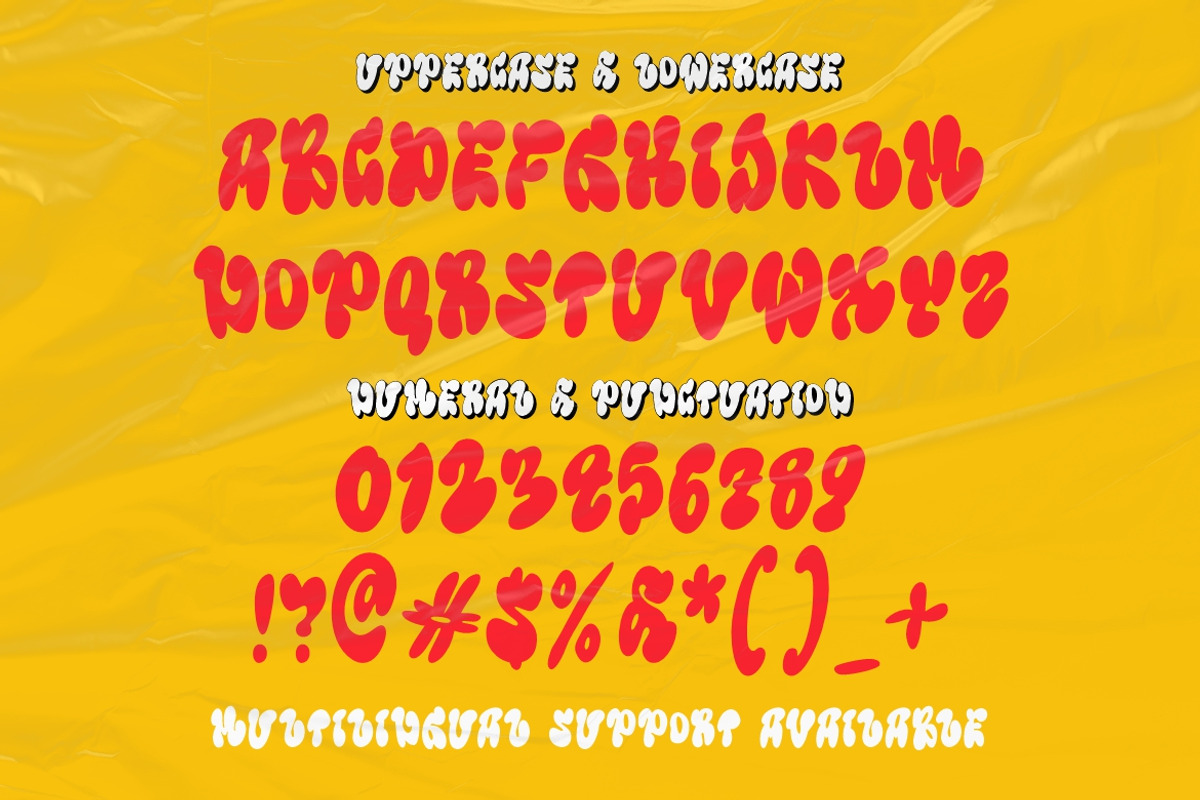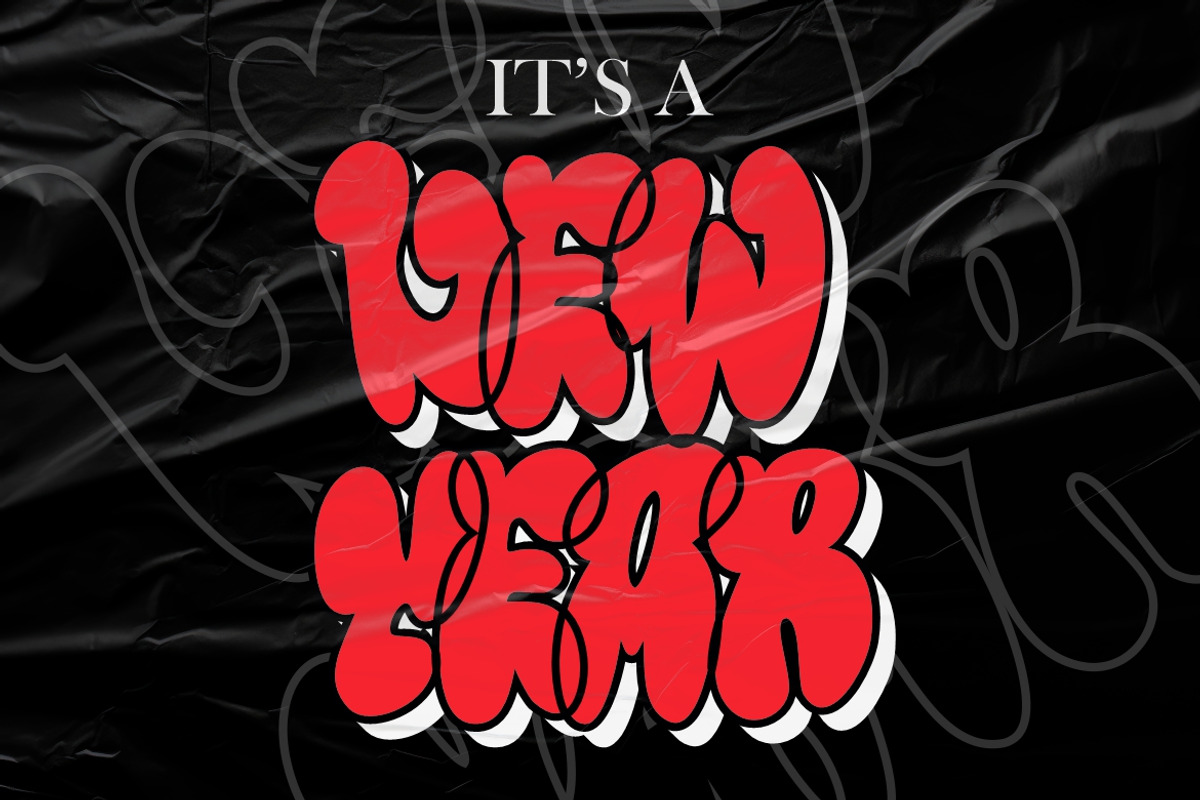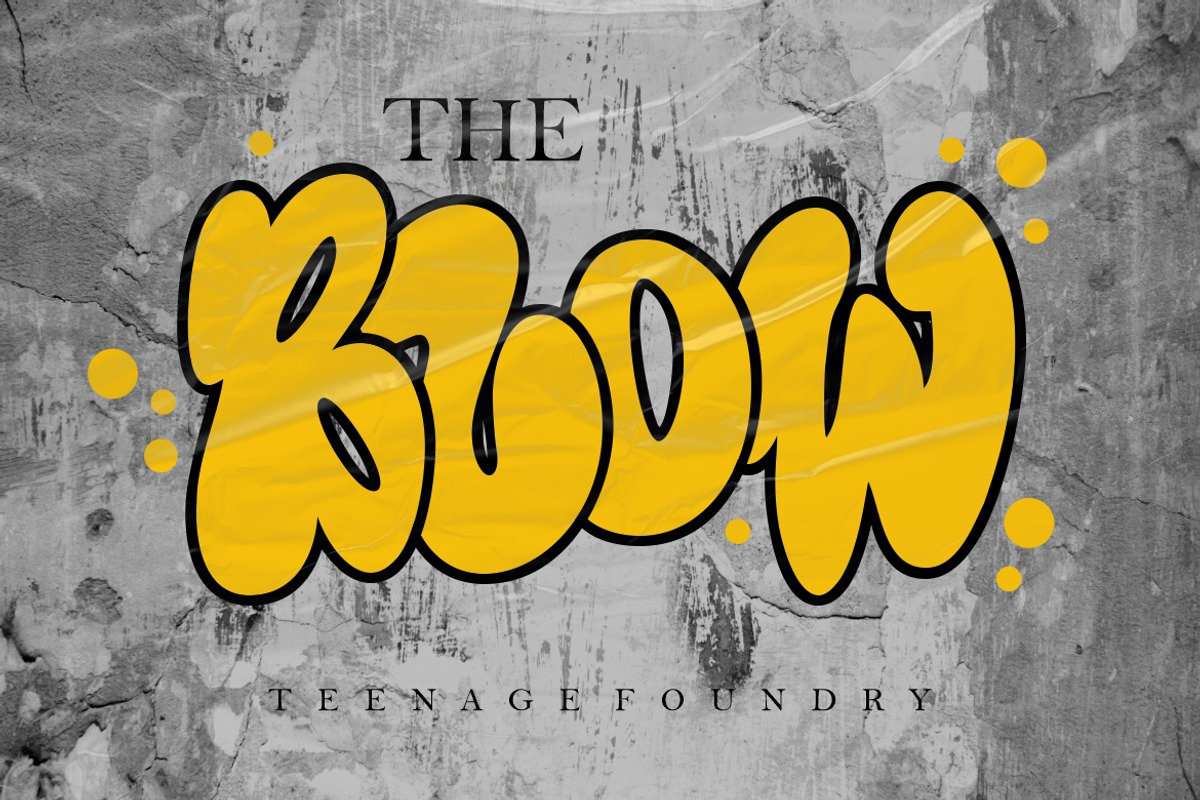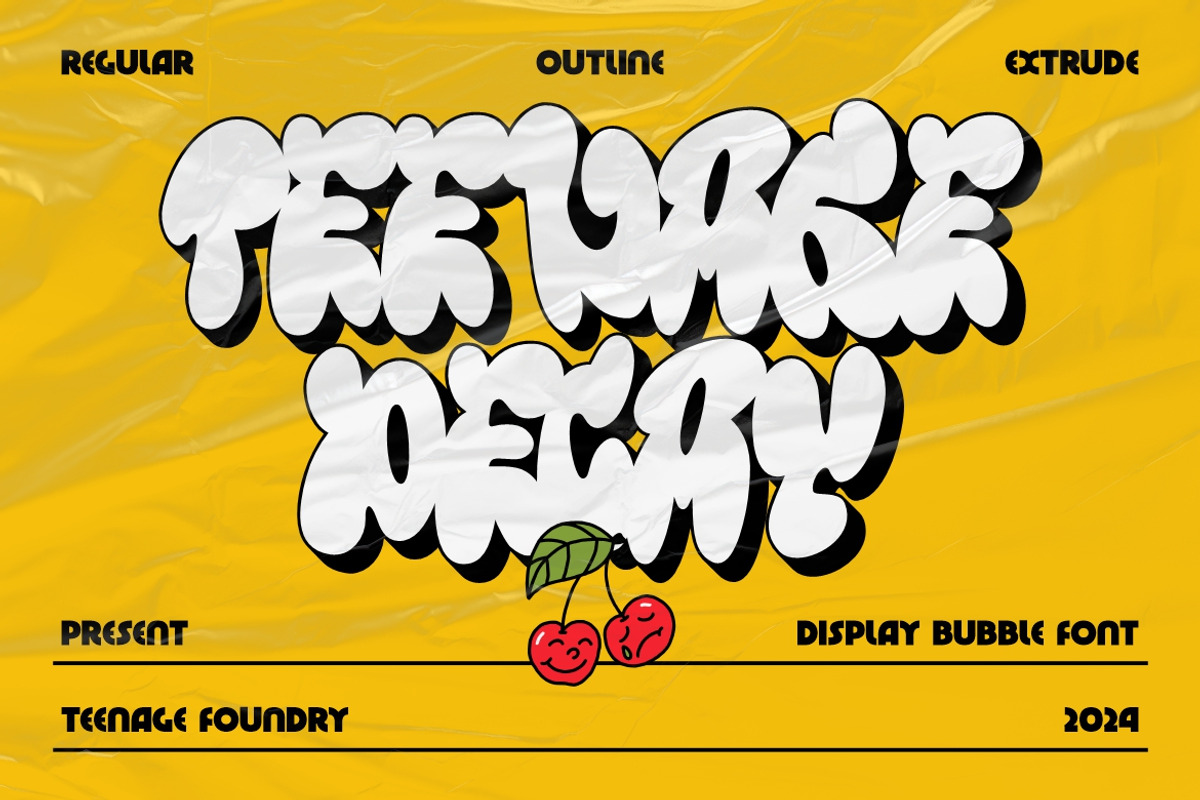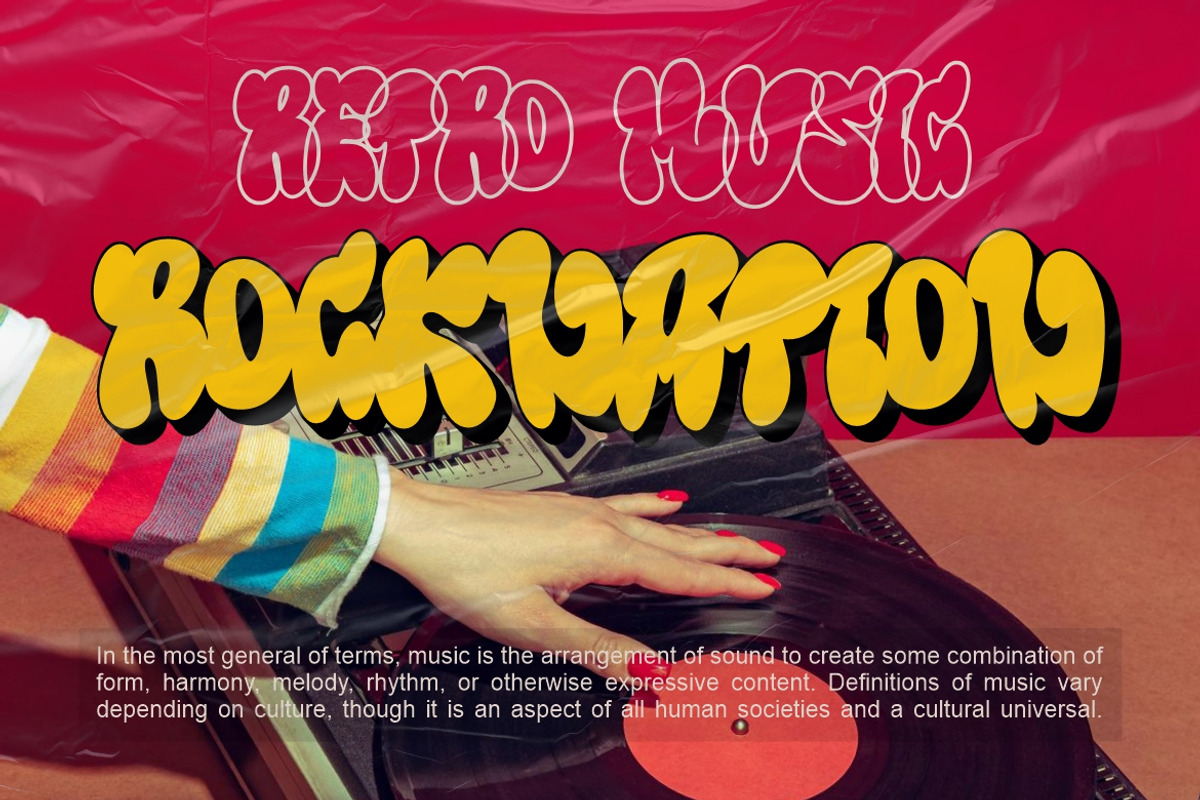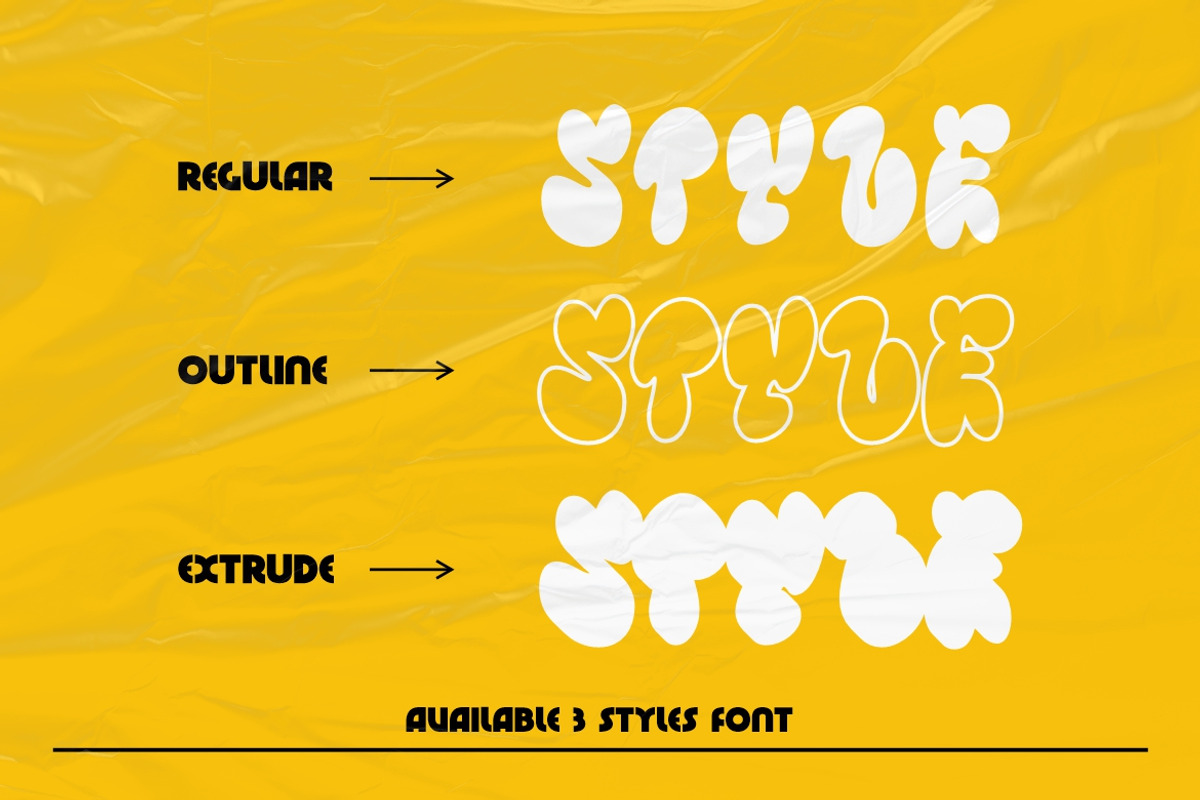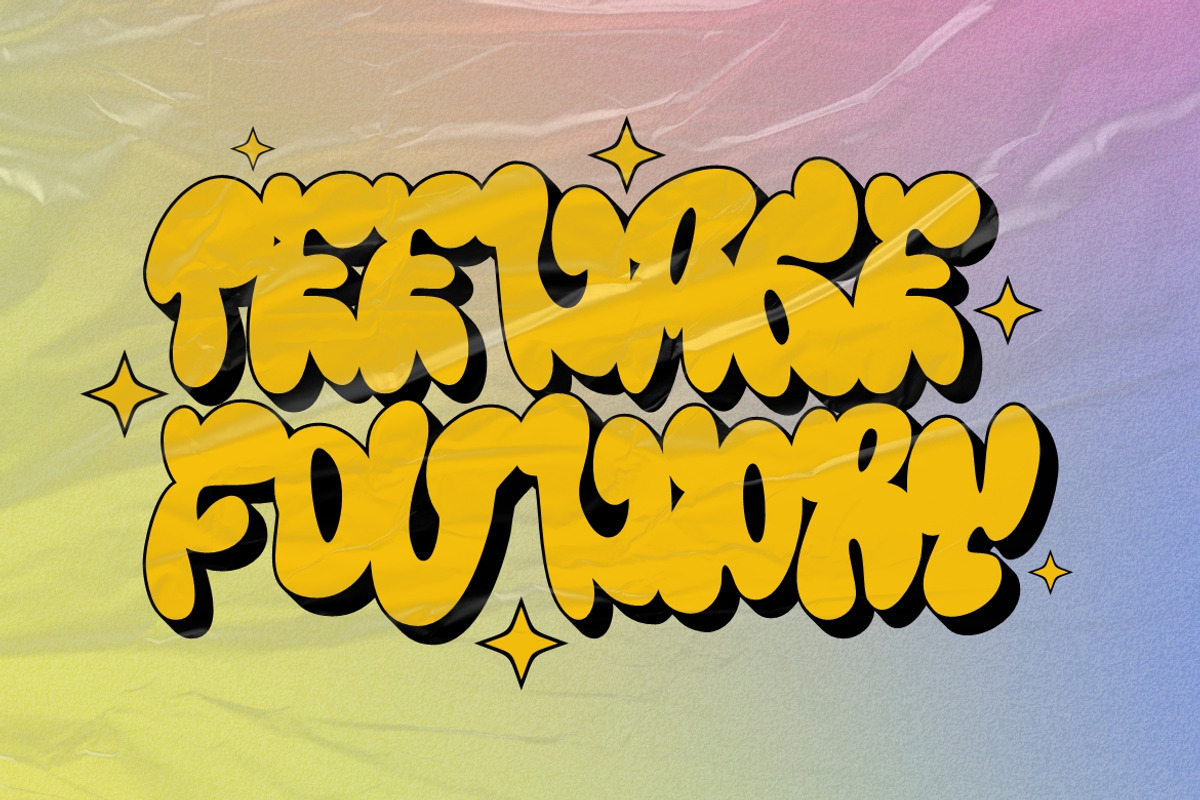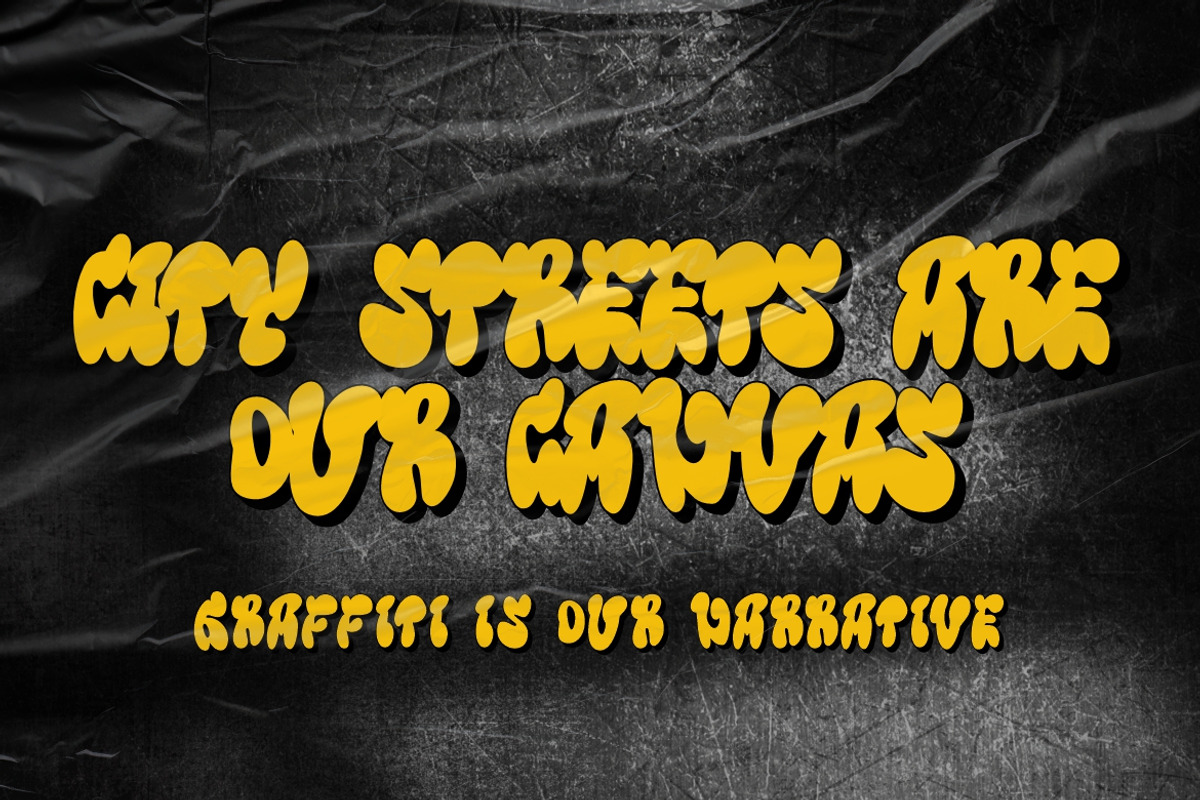
Teenage Decay
Introducing our newest font creation!
Teenage Decay is a bold and dynamic display bubble font inspired by the vibrant world of graffiti and street art. This font captures the rebellious and expressive nature of urban aesthetics. With three unique styles - regular, outline, and extrude - Teenage Decay offers versatility and depth for your creative projects.
Teenage Decay is the ideal font choice if you want to infuse your designs with the rebellious and gritty spirit of street art.